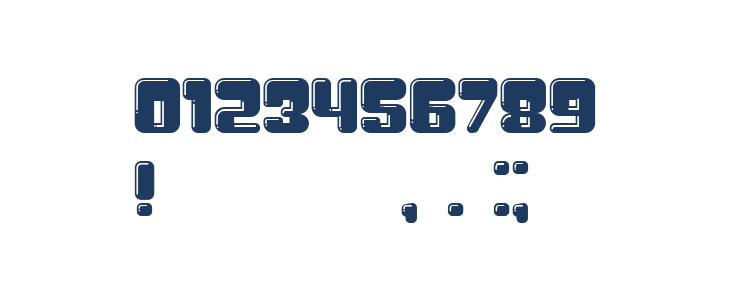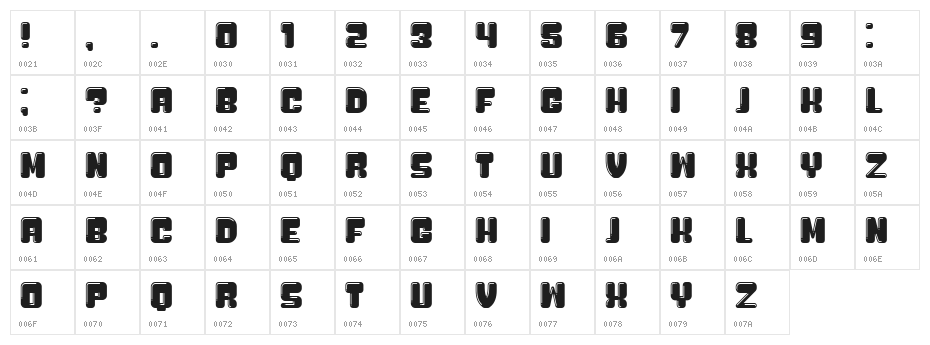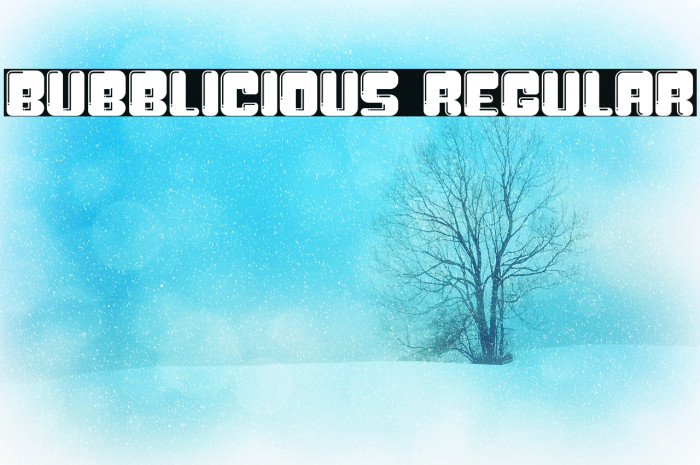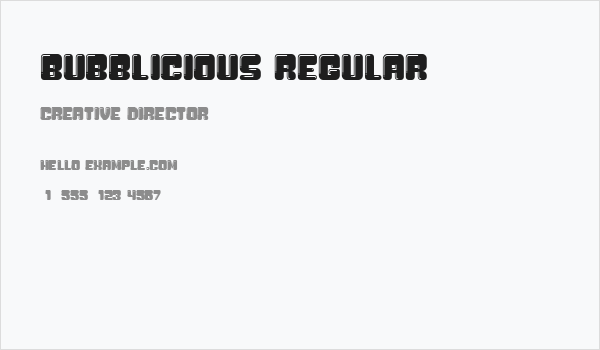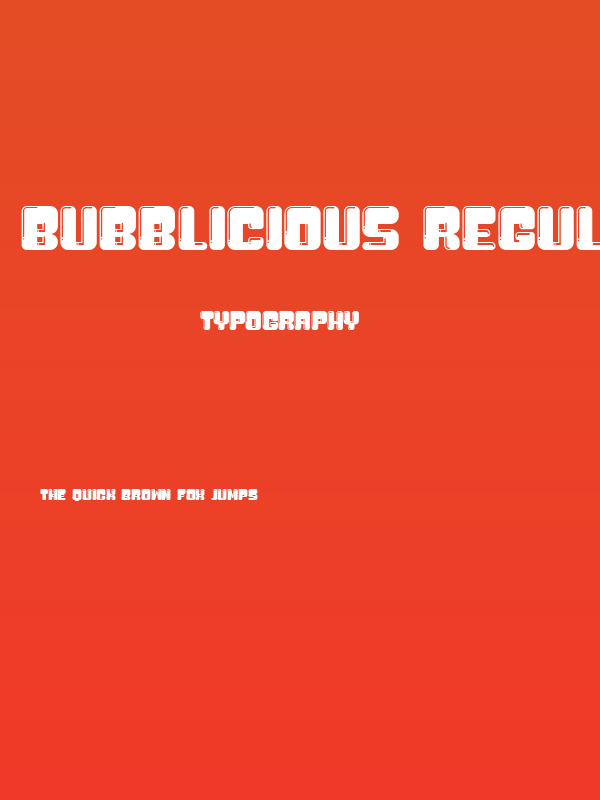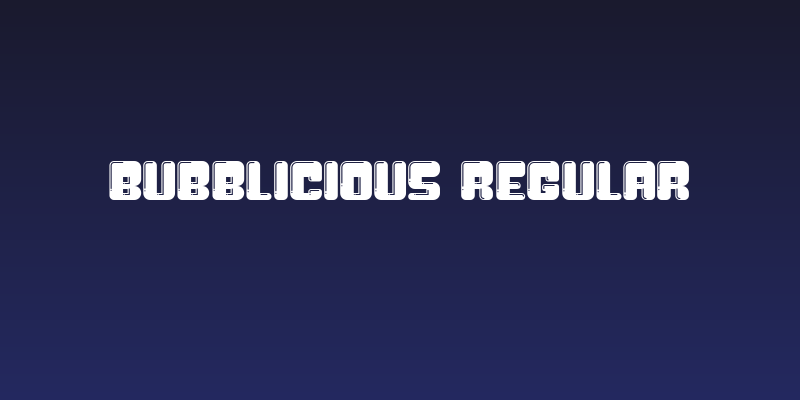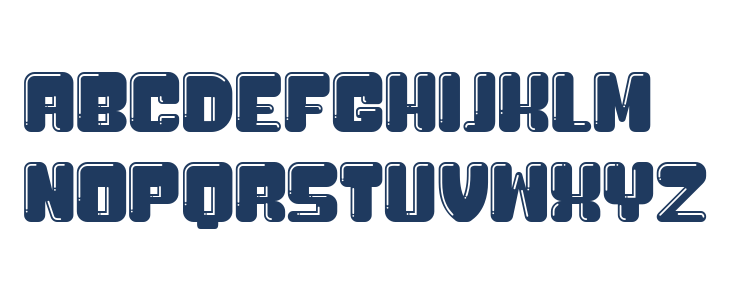
Bubblicious Regular Font
Bubblicious Regular Description
This font features a playful and bold design with rounded edges and a bubbly appearance. The characters are thick and substantial, creating a strong visual impact. The style is reminiscent of bubble letters, often used in graffiti or playful designs. The font maintains a consistent thickness throughout, giving it a uniform look. Its rounded forms and smooth curves make it approachable and friendly, ideal for projects that require a fun and informal touch. The characters are well-spaced, ensuring readability while maintaining a cohesive appearance.
| Overall Style | Playful, Fun, Informal |
| Proposed Projects | Ideal for children's book covers, playful posters, party invitations, and branding for fun-oriented products. |